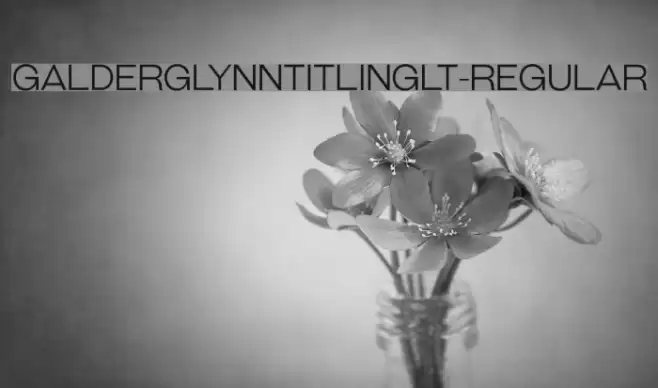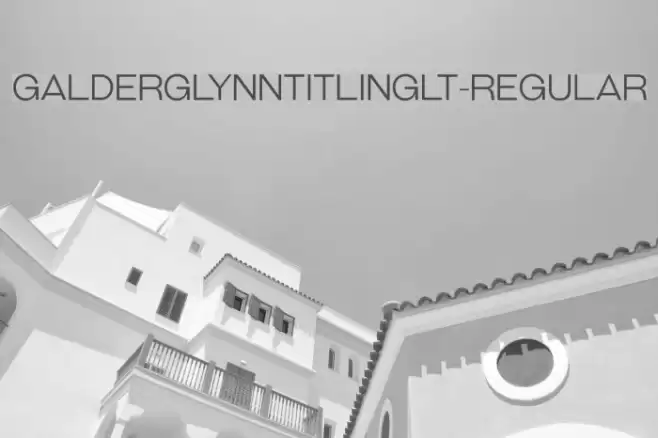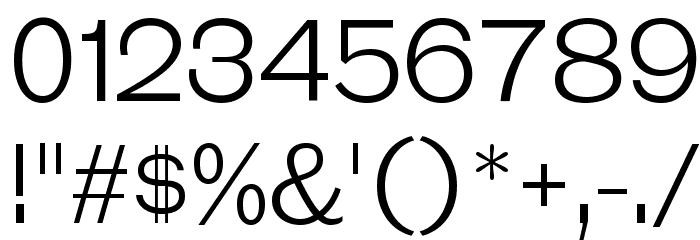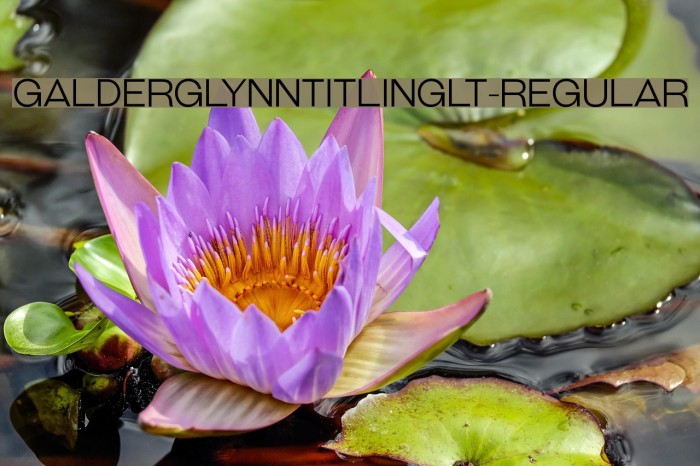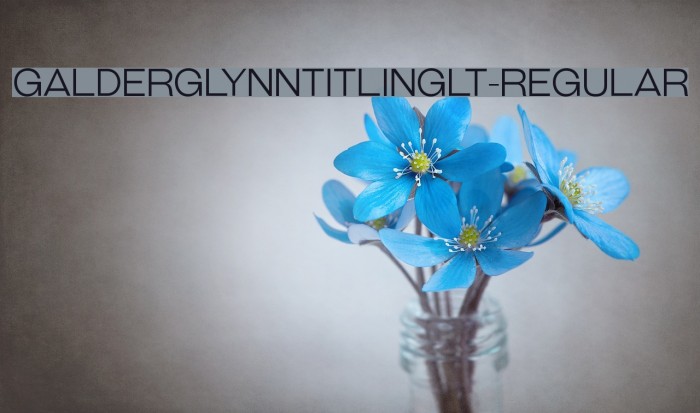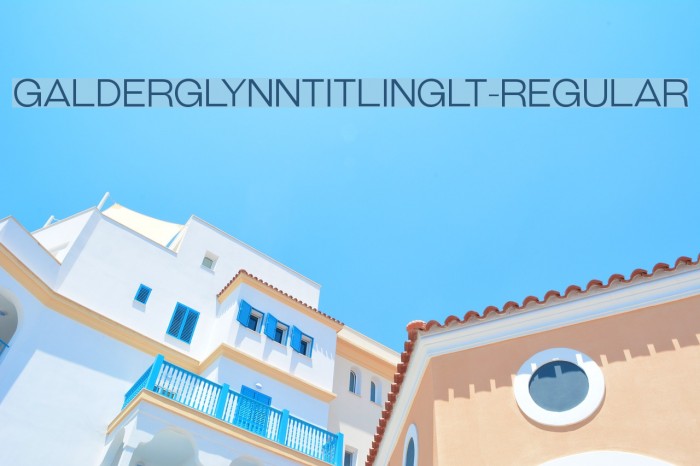
GalderglynnTitlingLt-Regular Font
GalderglynnTitlingLt-Regular Description
This font showcases a clean and modern sans-serif style with a geometric structure. The characters are uniform in width, providing a balanced and harmonious appearance. The uppercase letters are bold and assertive, while the lowercase letters maintain a consistent height, enhancing readability. The numerals are clear and distinct, making them suitable for various applications. Special characters are well-defined, adding versatility to the font. The overall design is sleek and professional, making it ideal for contemporary projects.
A modern, geometric sans-serif font with clean lines and balanced proportions from Uncategorized fonts.